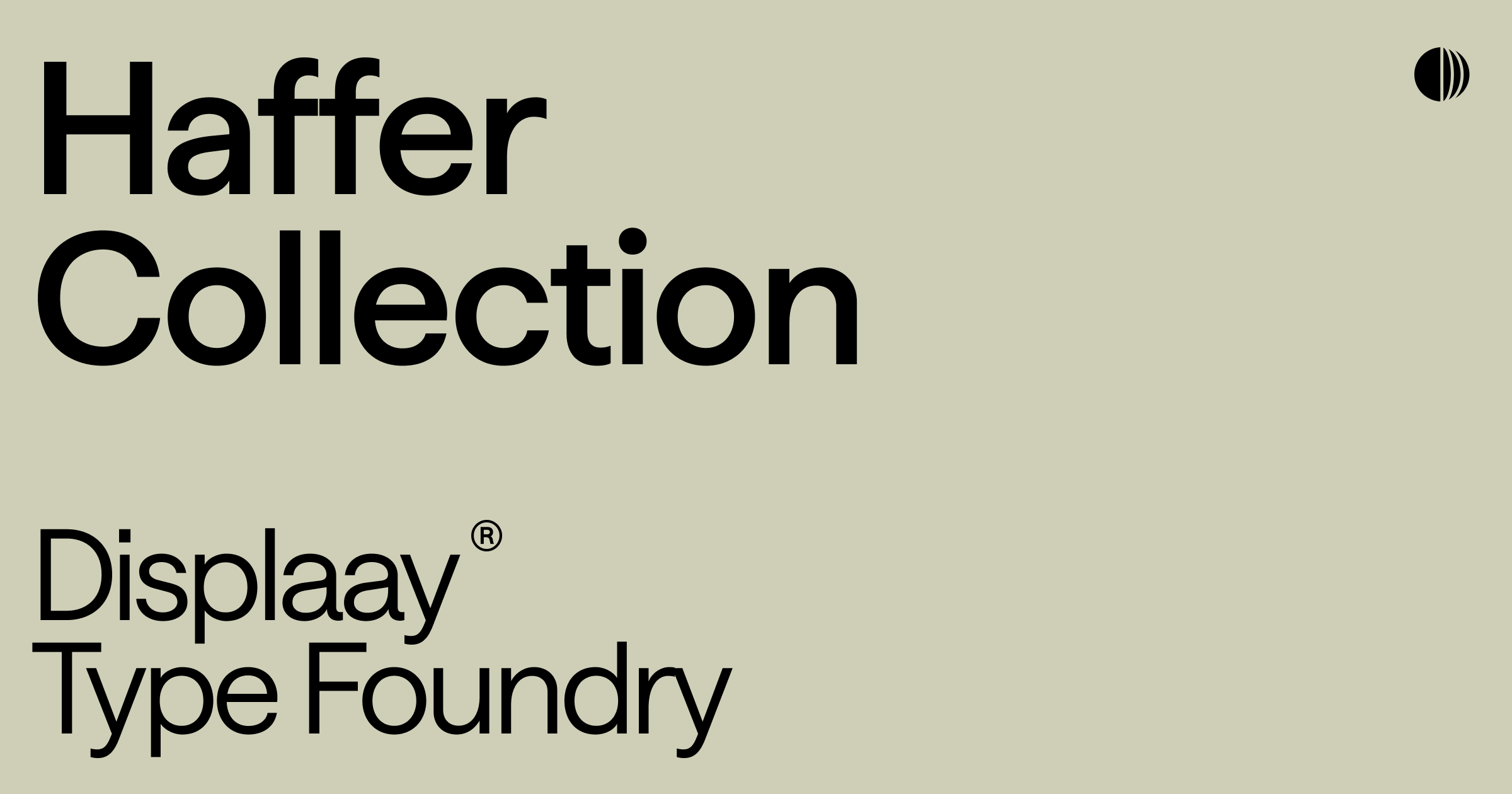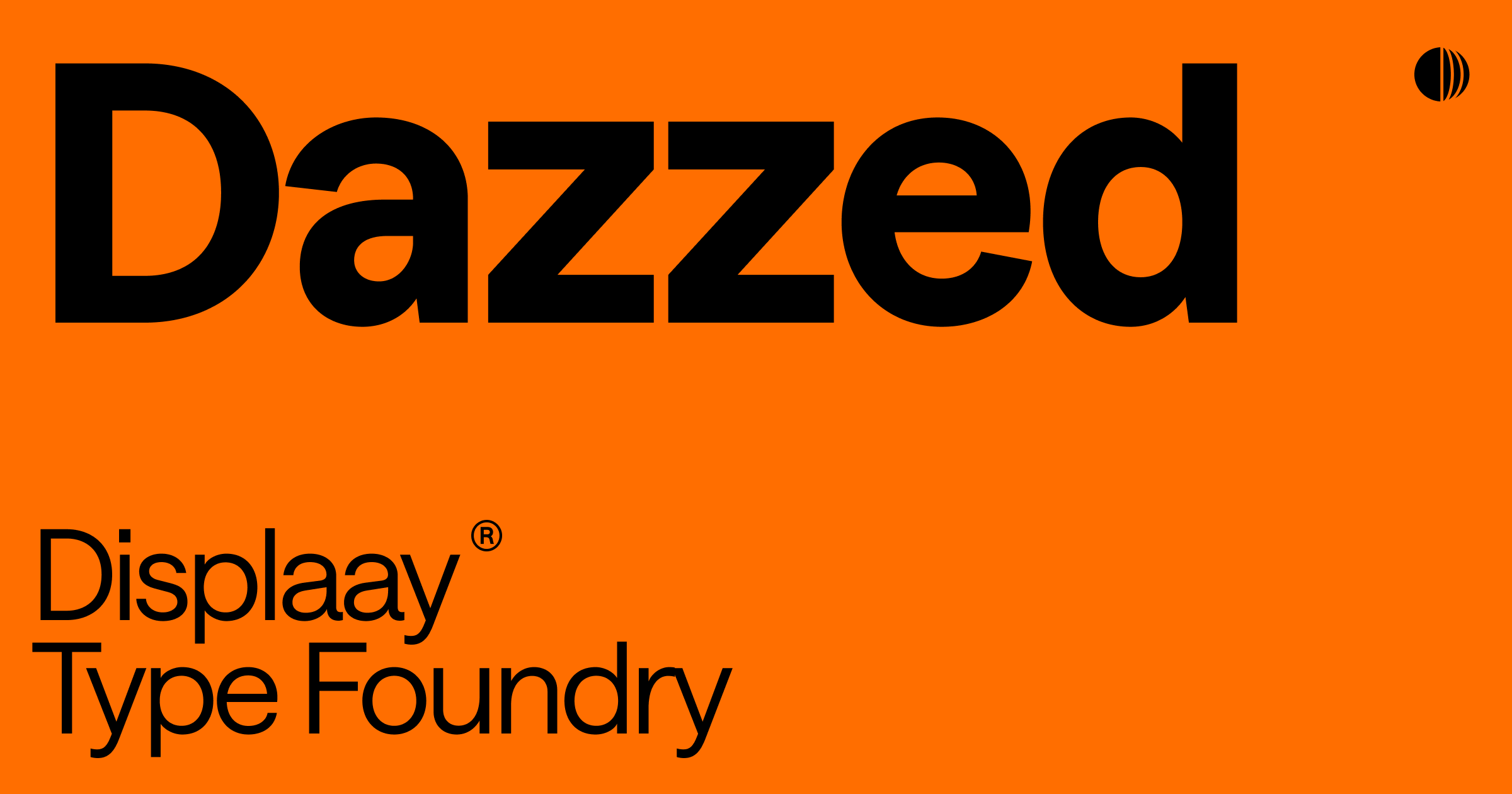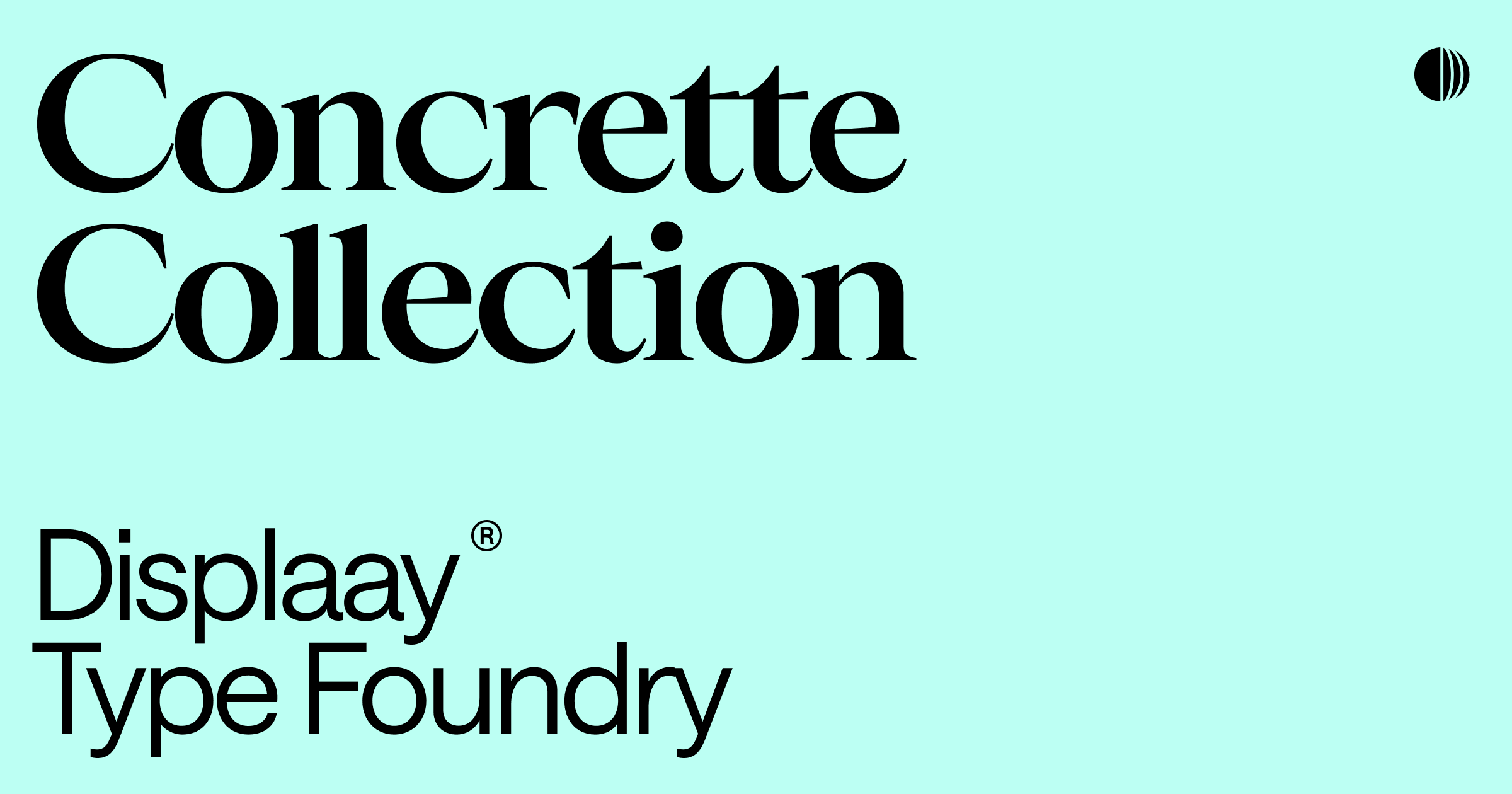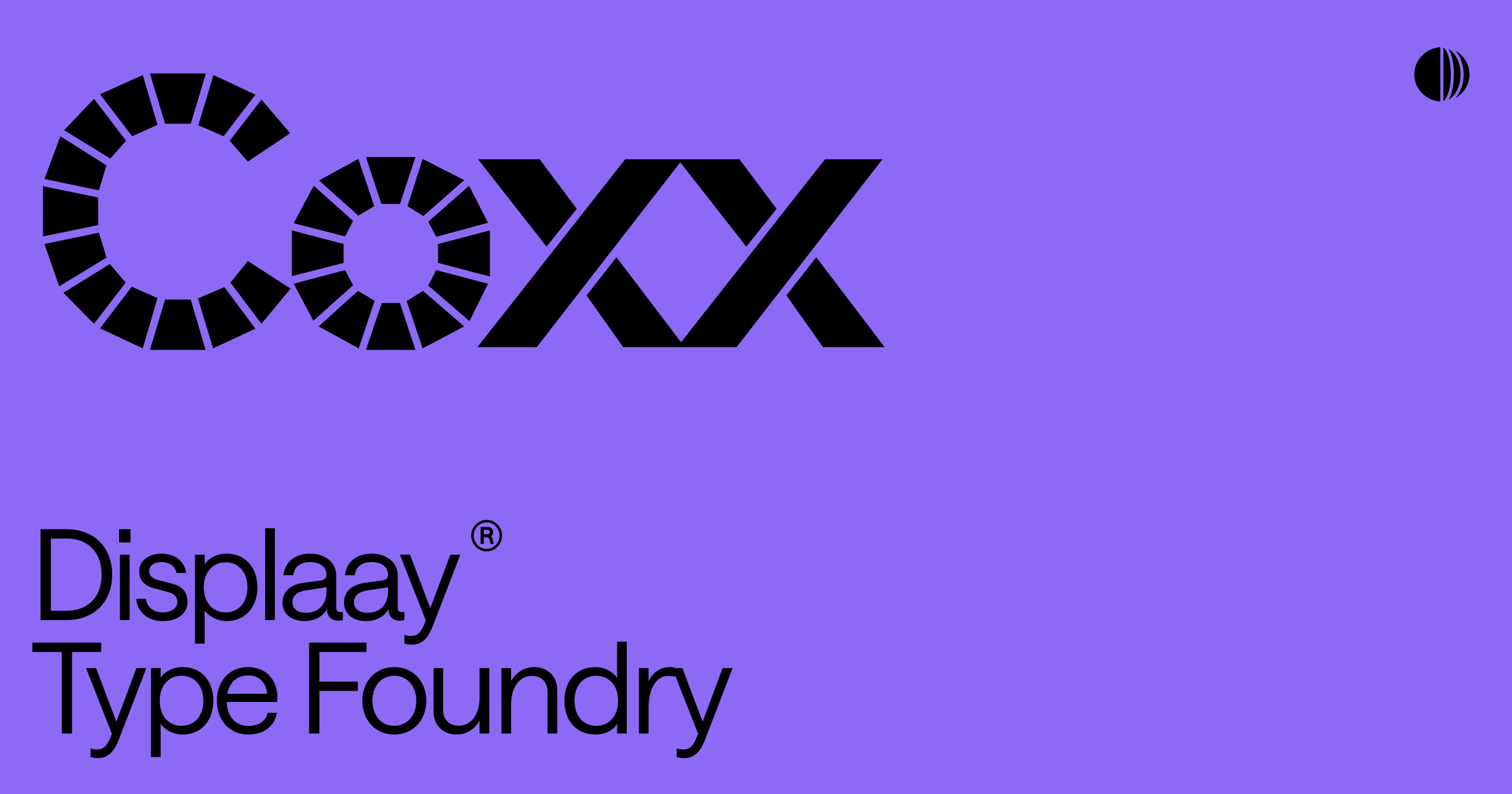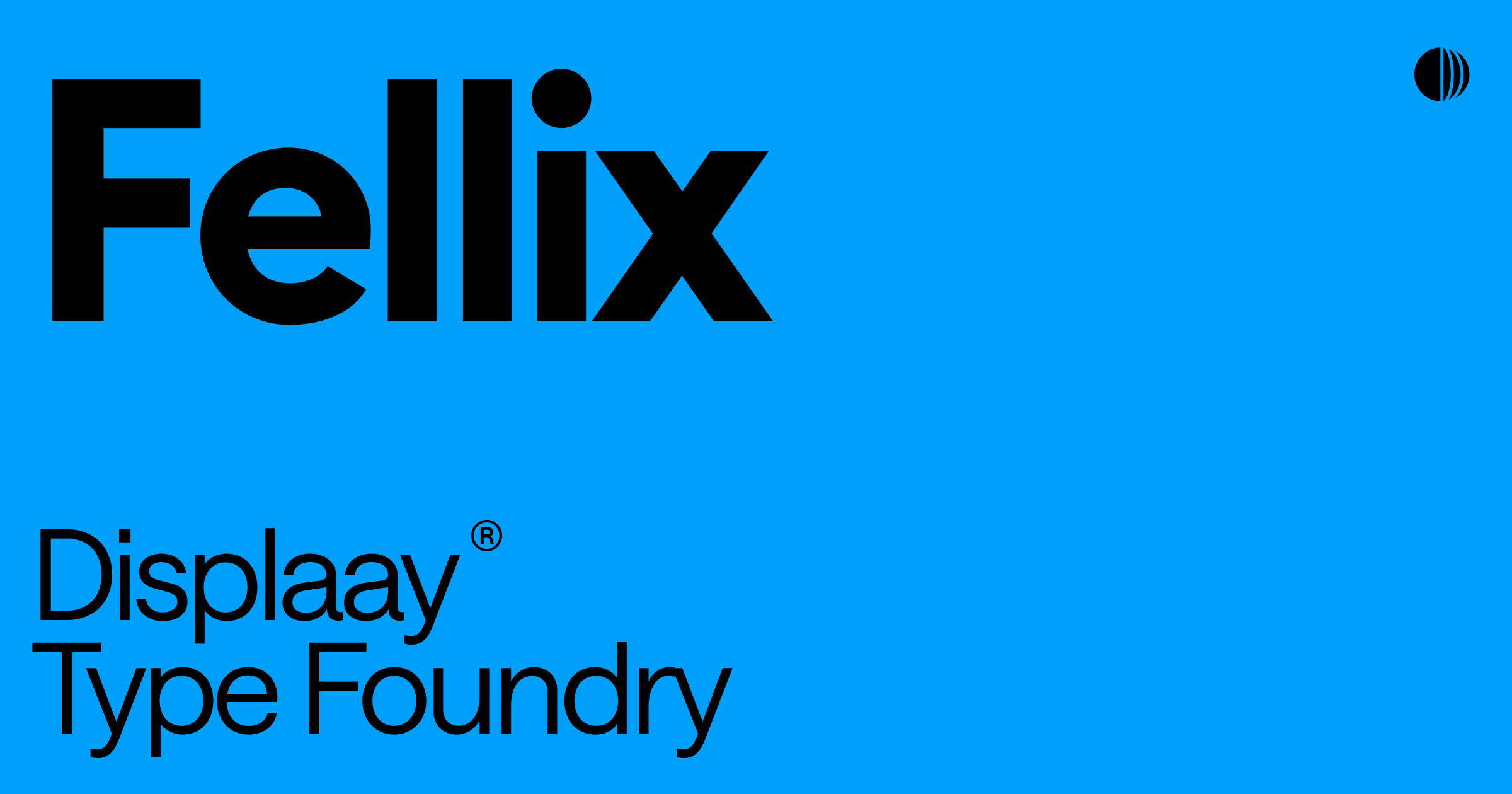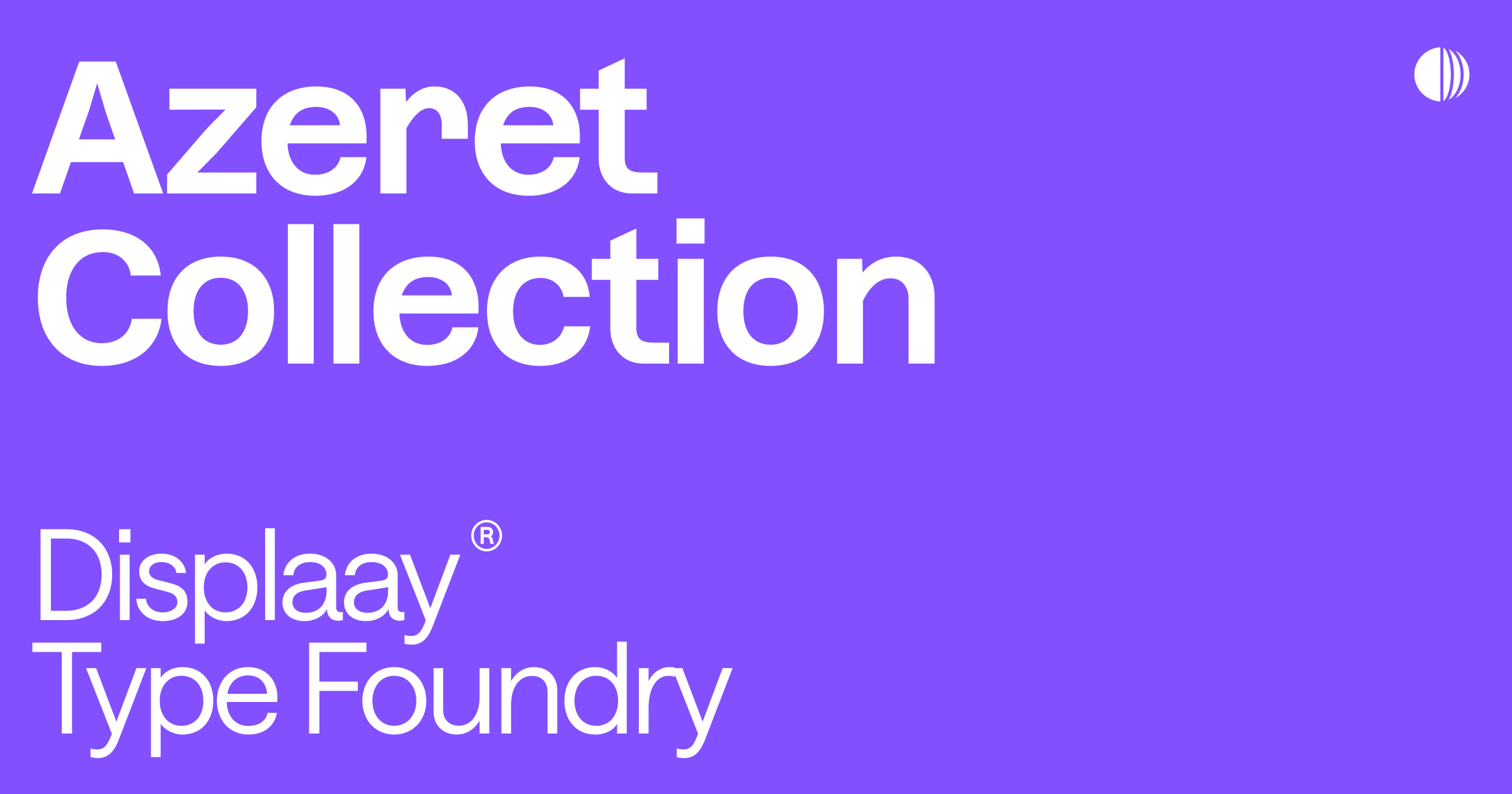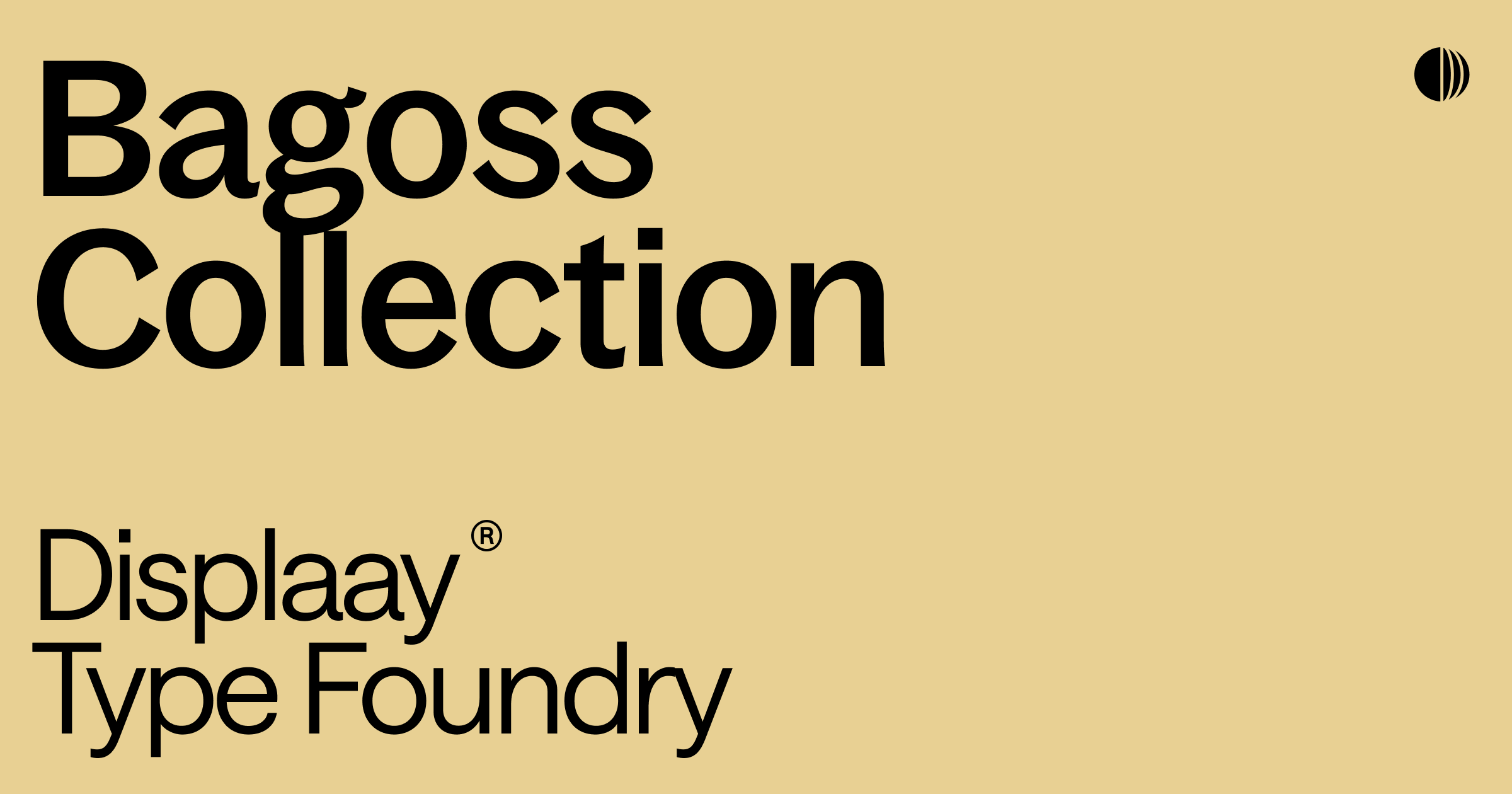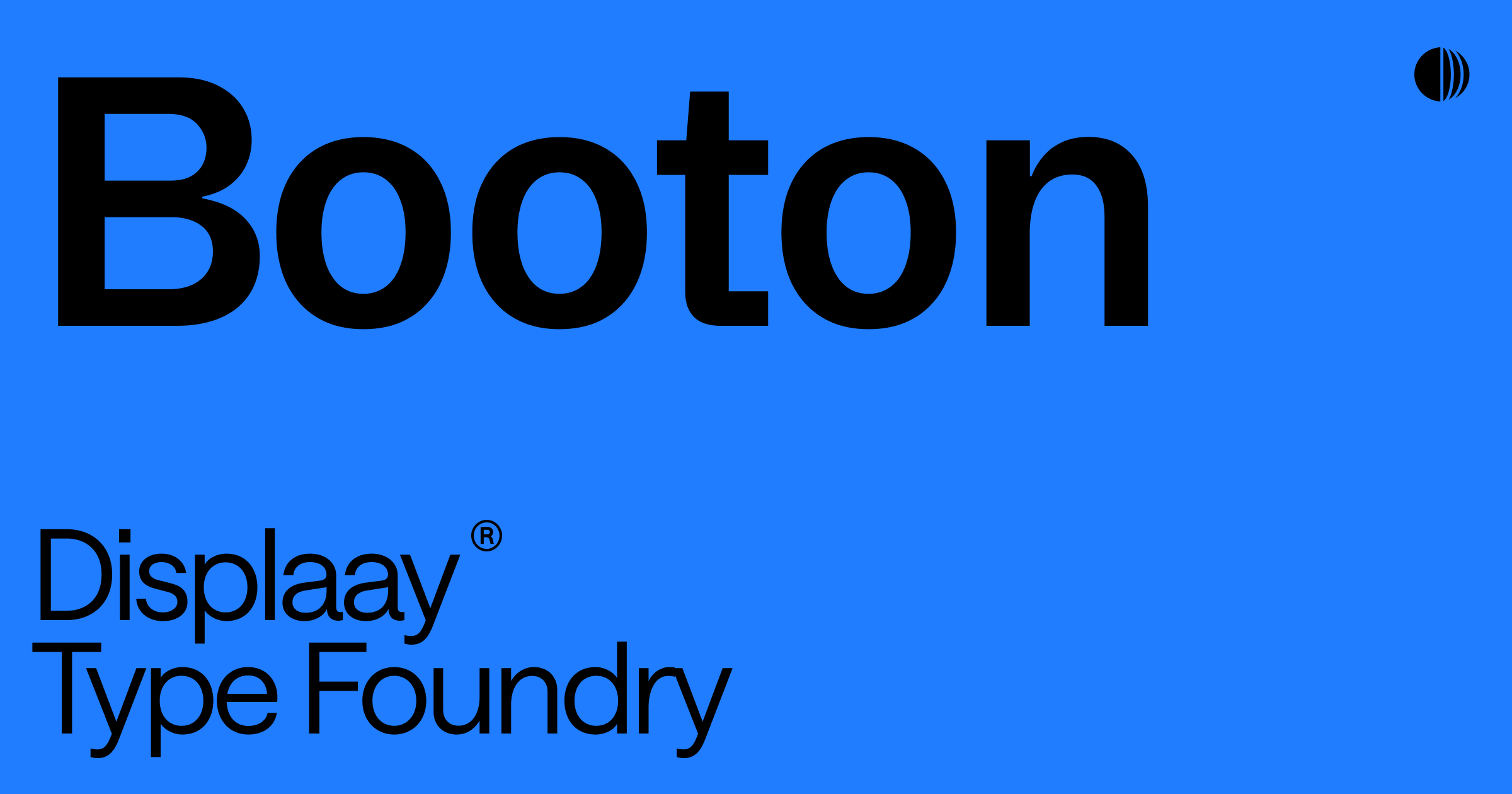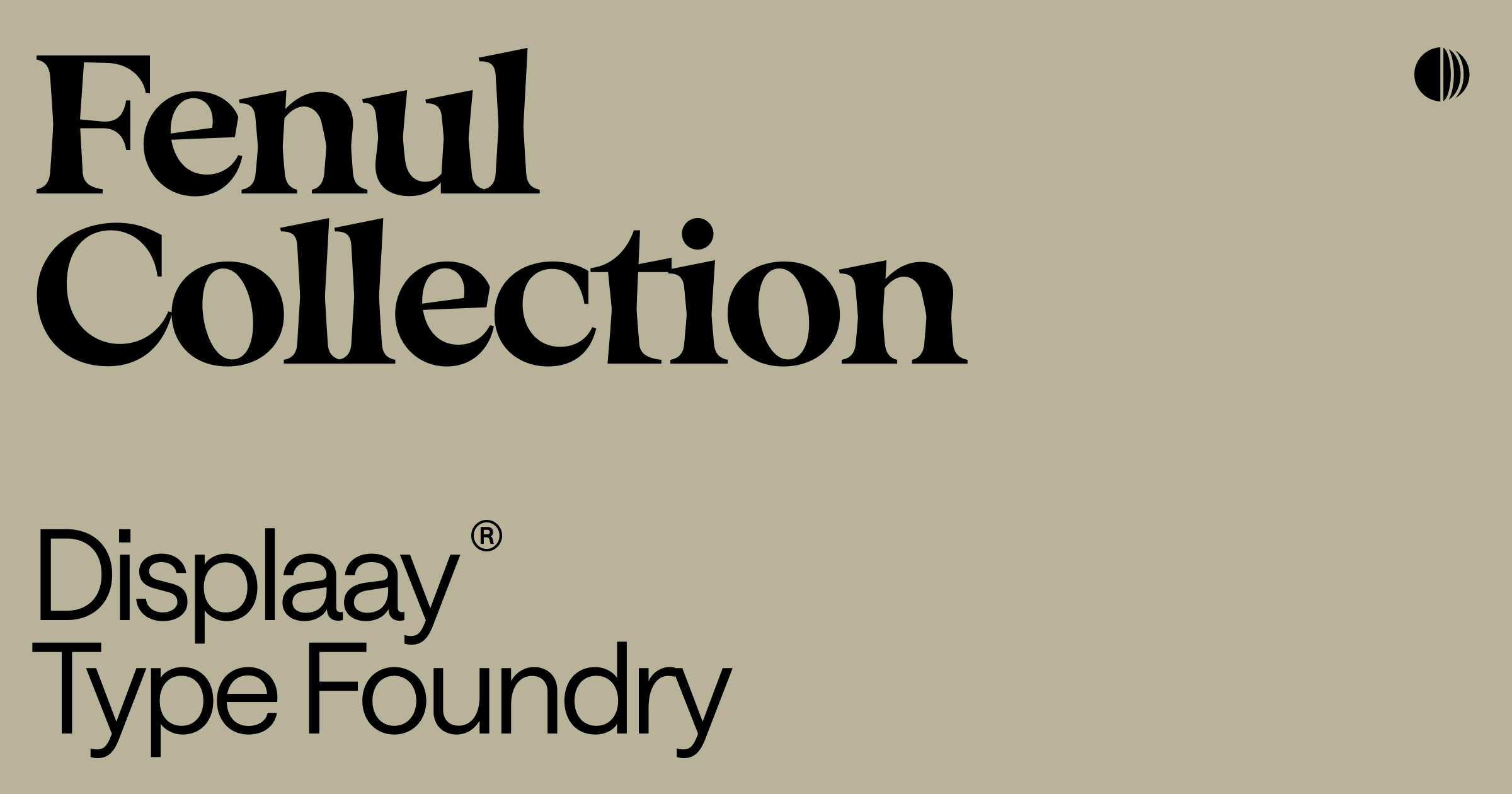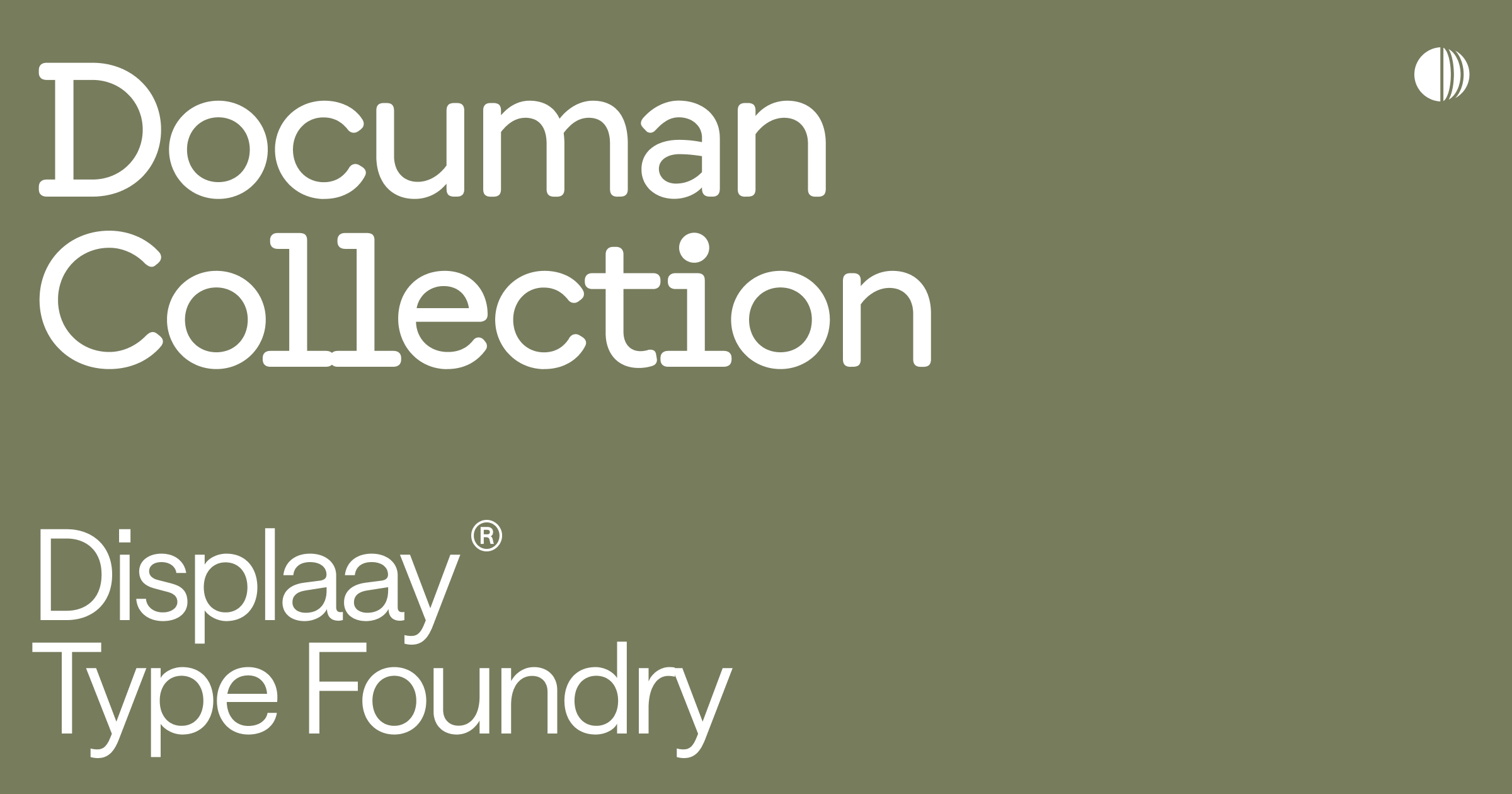
Aguzzo
Designed by Kasper Pyndt Rasmussen, Aguzzo is a serif typeface loosely related to Augustea, designed by Butti and Novarese for Fonderia Nebiolo in 1951.
Avantt
Avantt — functionalist-inspired sans with architectural cues, clean proportions, titling alternates; ideal for signage, headlines and refined branding.
Azeret
Azeret — mono-linear sans with high x-height and 90s‑inspired alternates; versatile for UI, system displays and contemporary branding.
Bagoss
Bagoss — characterful family from condensed to expanded; large x‑height, diagonal terminals and tiny single‑edge serif.
Booton
Booton — screen-optimised sans with uni‑width across weights, high x‑height, ink traps and consistent spacing — perfect for digital UI and buttons.
Concrette
Concrette — Exaggerated arches, rhythmic structure and strong contrast
Coolkit
Yummy lollipop for your boring days
Coxx
Preissig on coke at a rave party
Dazzed
Dazzed — narrow cinematic sans mixing comic, grotesque and sci‑fi cues; cut terminals, rounded dots and dynamic italics.
Denim
Denim — humanist‑technical sans with flattened overshoots and graceful forms; works equally well in compact text and bold display/headline settings.
Documan
Documan — Semi‑rounded, typewriter‑tinged family (not monospace)
Fellix
Fellix — mono‑linear geometric sans inspired by Futura; diagonal terminals, stylistic alternates and tensions between circular and square shapes.
Fenul
Fenul — Serif inspired by anatomy drawings: thin centres, heavier ends
Gellix
Gellix — strict geometric mono‑linear sans with many alternates; balances circular and square forms for a cool, modern grotesque look.
Greed
Greed — elegant sans with multiple widths (condensed→extended), subtle stroke contrast and stylized italics — refined display & identity use.
Haffer
Haffer — crisp, strict sans with horizontal/vertical terminals and warm Matter lineage; performs across sizes; XH variant boosts x‑height for punchy logos.
Hellix
Hellix — mono‑linear geometric sans with punched circular forms and diagonal terminals; Futura‑inspired, with strict stylistic alternates for modern editorial use.
Jokker
Jokker — playful grotesque with elevated x‑height, circular construction and tight diagonal terminals; compact, characterful and great for expressive headlines.
Lazzer
Lazzer — narrow sans derived from Dazzed with closed terminals; cinematic, technical feel ideal for tight layouts, headlines and modern branding.
Matter
Matter — warm grotesque with lively forms and subtly angled terminals; versatile workhorse that reads well from small text to bold display applications.